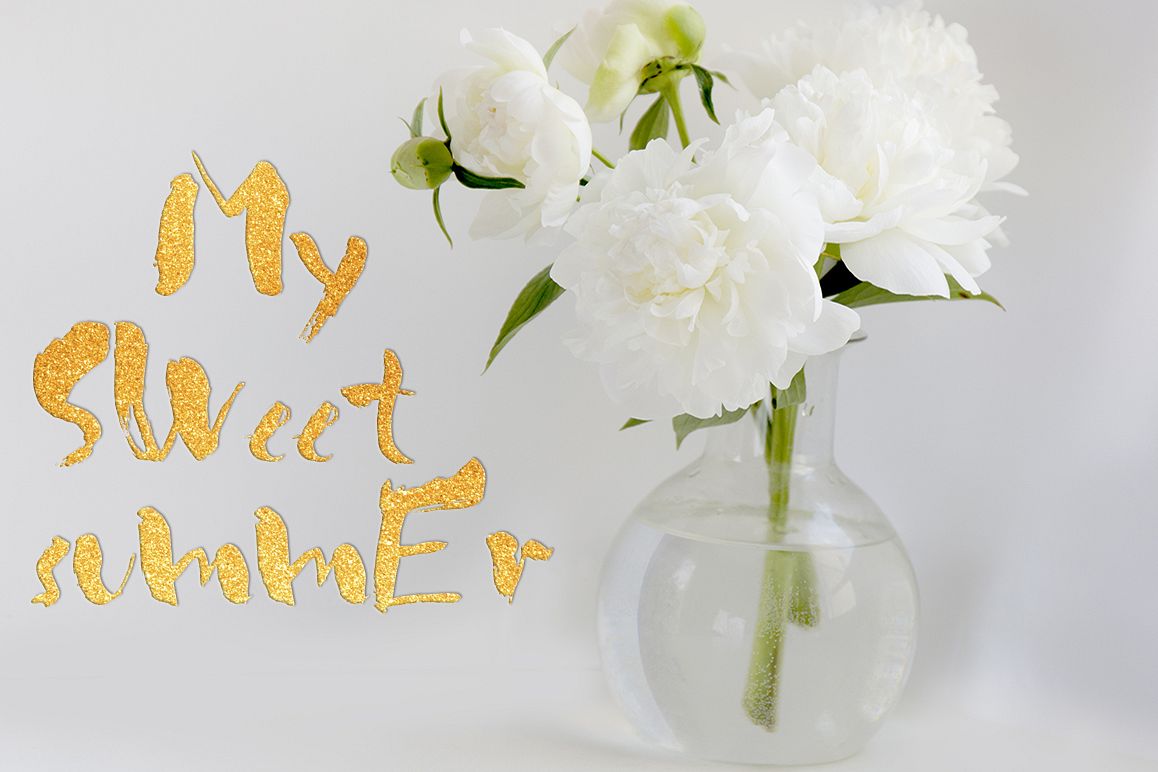
Grunge dry brush font duo
1 bold dry font Bold
1 dry brush font
Handwritten ink dry brush font duo. Perfect for grunge projects, greeting cards, typography work and more. You can see all the letters, numbers and symbols in the 3 preview.